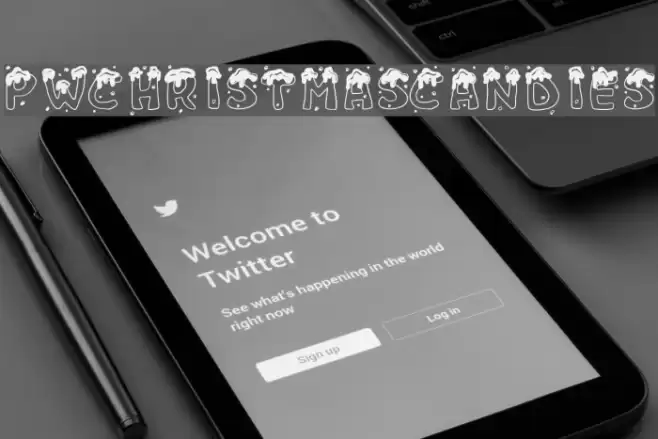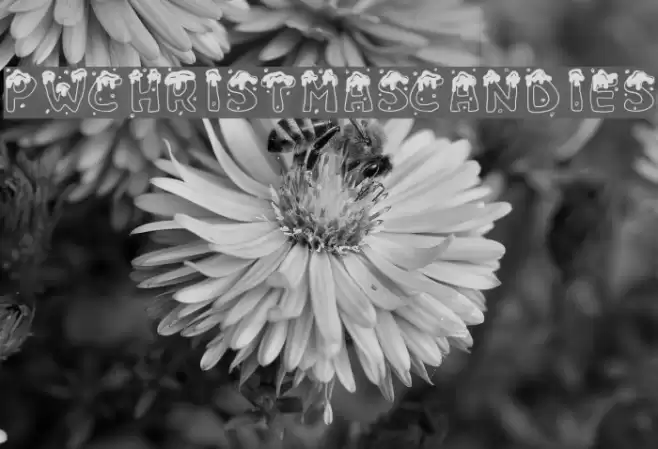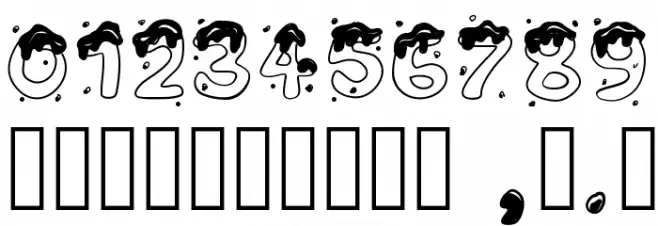
PWChristmascandies Font
PWChristmascandies Description
This playful and whimsical font is characterized by its unique design that resembles dripping chocolate or icing, perfect for festive and fun themes. Each character is adorned with a decorative topping, adding a sense of movement and texture. The letters are bold and rounded, providing a friendly and approachable appearance. The font maintains a consistent style across uppercase, lowercase, and numerical characters, ensuring uniformity in design. Special characters are also included, featuring the same delightful embellishments. This font is ideal for creative projects that require a touch of joy and celebration.
A playful, icing-topped font perfect for festive themes from Uncategorized fonts.
- Proposed Projects: Ideal for holiday cards, children's party invitations, festive banners, and playful branding.
- Use Case: Headlines, Logos, Invitations